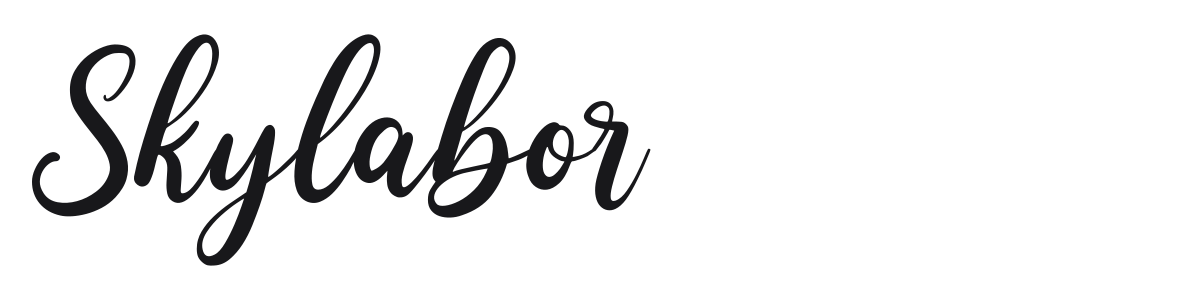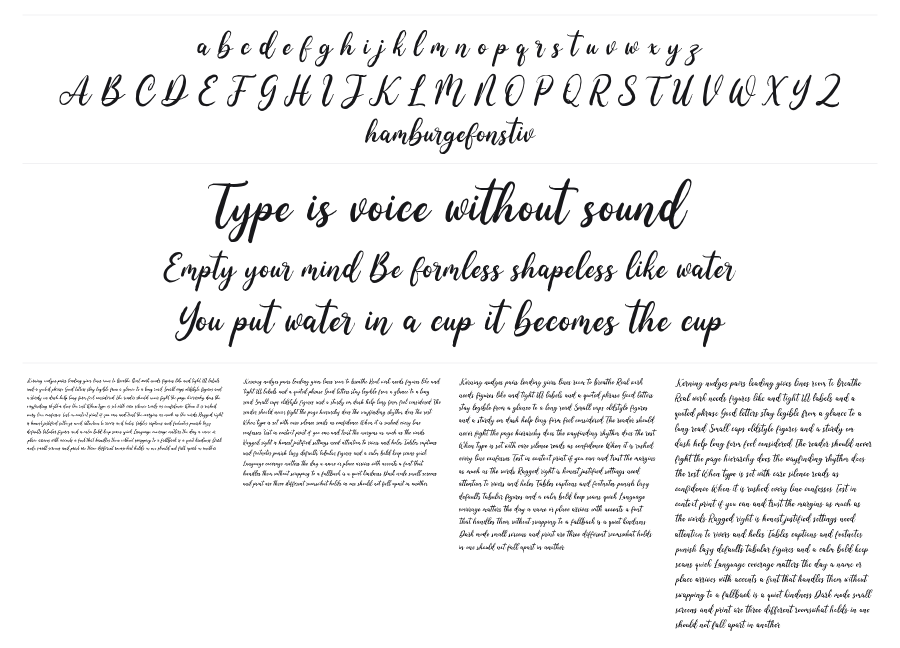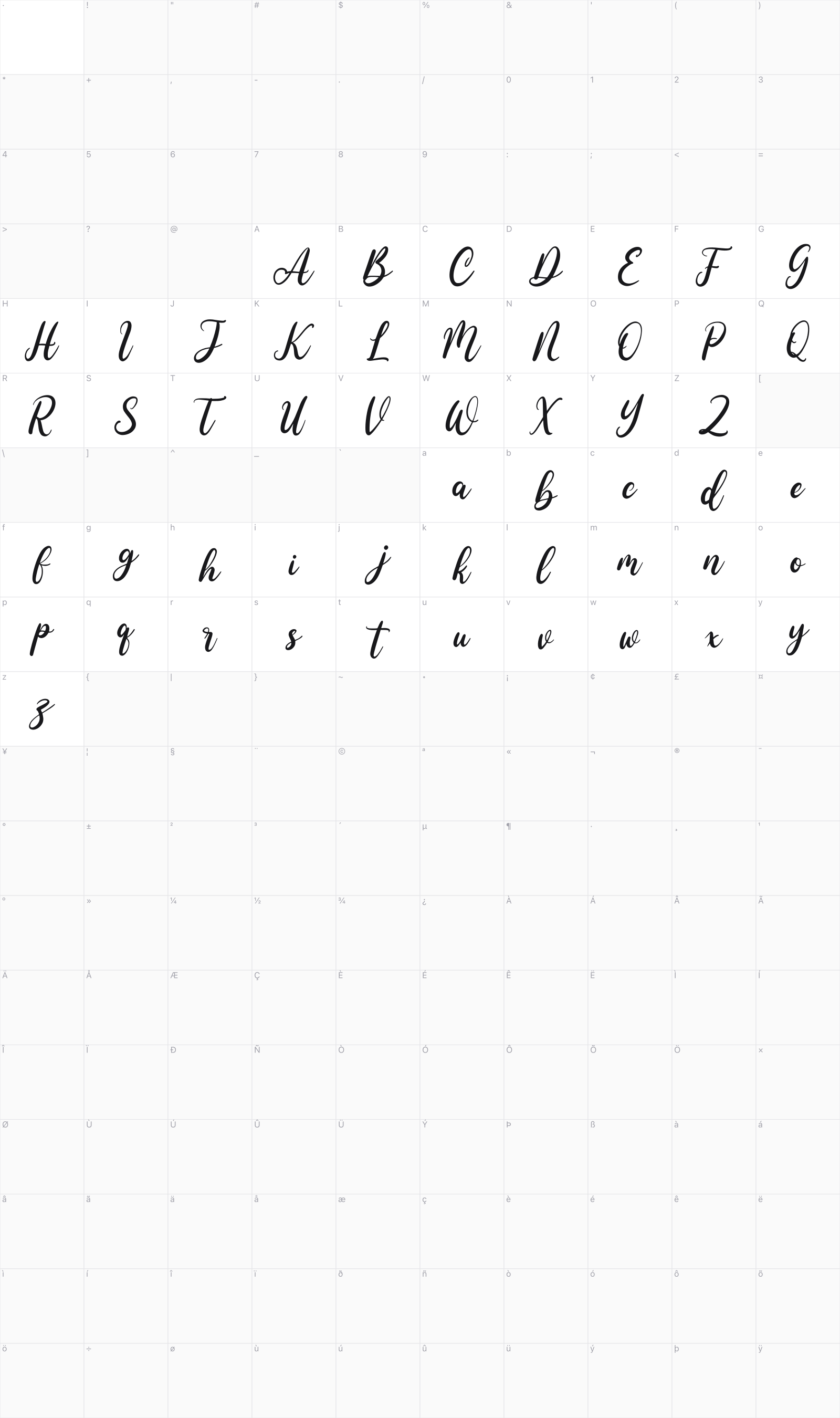
Skylabor
Skylabor is a contemporary casual script with energetic bounce and strong thick-to-thin stroke contrast. The flowing connected letters and lively baseline rhythm give it a hand-lettered spontaneity that reads equally well on packaging, social media graphics, and event branding. It sits comfortably in the modern calligraphy tradition without feeling derivative.